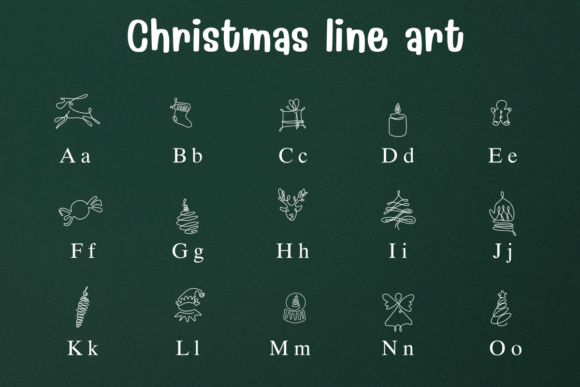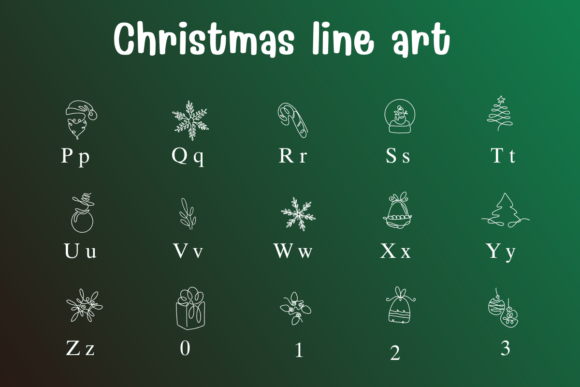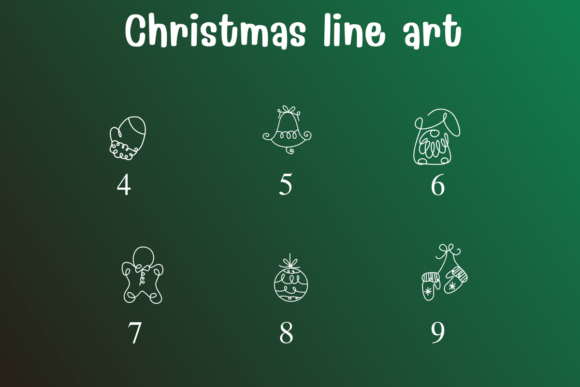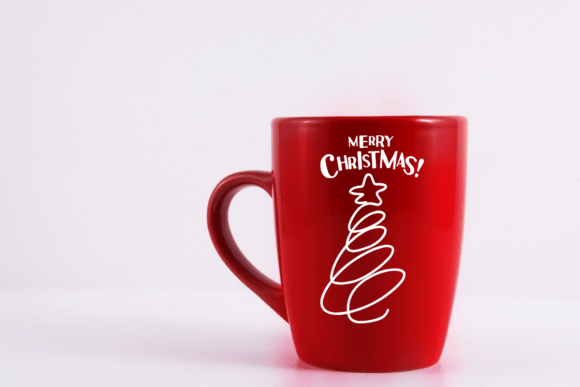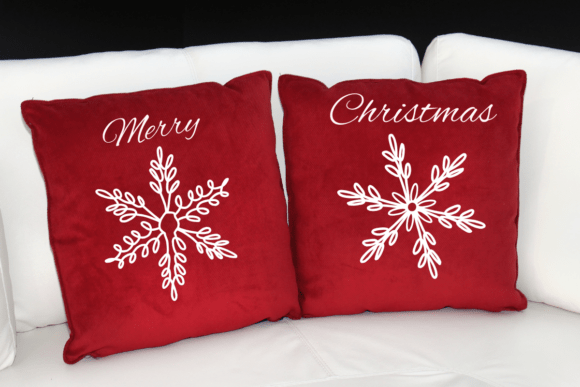
The Magic of Christmas Line Art Font: A Designer’s Delight
It’s that time of the year again – the season of sparkle, shine, and endless design projects. I still remember the year I was tasked with creating a Christmas-themed invitation for a client’s holiday party. I had a vision of a beautiful, elegant design, but I was struggling to find the perfect font to bring it all together. That’s when I stumbled upon Christmas Line Art Font, and it instantly became my go-to for the project. The festive dingbats font added a touch of magic to my design, and my client loved it! In this article, I’ll share my experience with Christmas Line Art Font, its features, and how to make the most of it in your designs.
An Honest Review of Christmas Line Art Font
As a designer, I’m always on the lookout for fonts that are both versatile and visually appealing. Christmas Line Art Font definitely fits the bill. Here’s what I love about it:
• ✨ Festive and fun: The font is perfect for the holiday season, with a wide range of Christmas-themed glyphs.
• 🎨 Highly versatile: Christmas Line Art Font can be used for a variety of design projects, from websites and logos to cards and invitations.
While Christmas Line Art Font is an excellent choice for many design projects, it’s not without its quirks. Here are a few things to keep in mind:
• 🤔 Limited character set: As a dingbats font, Christmas Line Art Font has a limited character set, which may not be suitable for projects that require a wide range of text.
• ⚠️ Not suitable for body text: The font is best used for headlines, titles, and accents, rather than body text.
The Backstory of Christmas Line Art Font
Christmas Line Art Font was created by a talented designer who wanted to capture the magic of the holiday season in a font. The designer spent countless hours perfecting the font, ensuring that it was both festive and versatile. The result is a font that’s perfect for adding a touch of holiday cheer to any design project.
What is Christmas Line Art Font? Christmas Line Art Font is a festive dingbats font that’s perfect for use on websites, logos, cards, invitations, posters, and more.